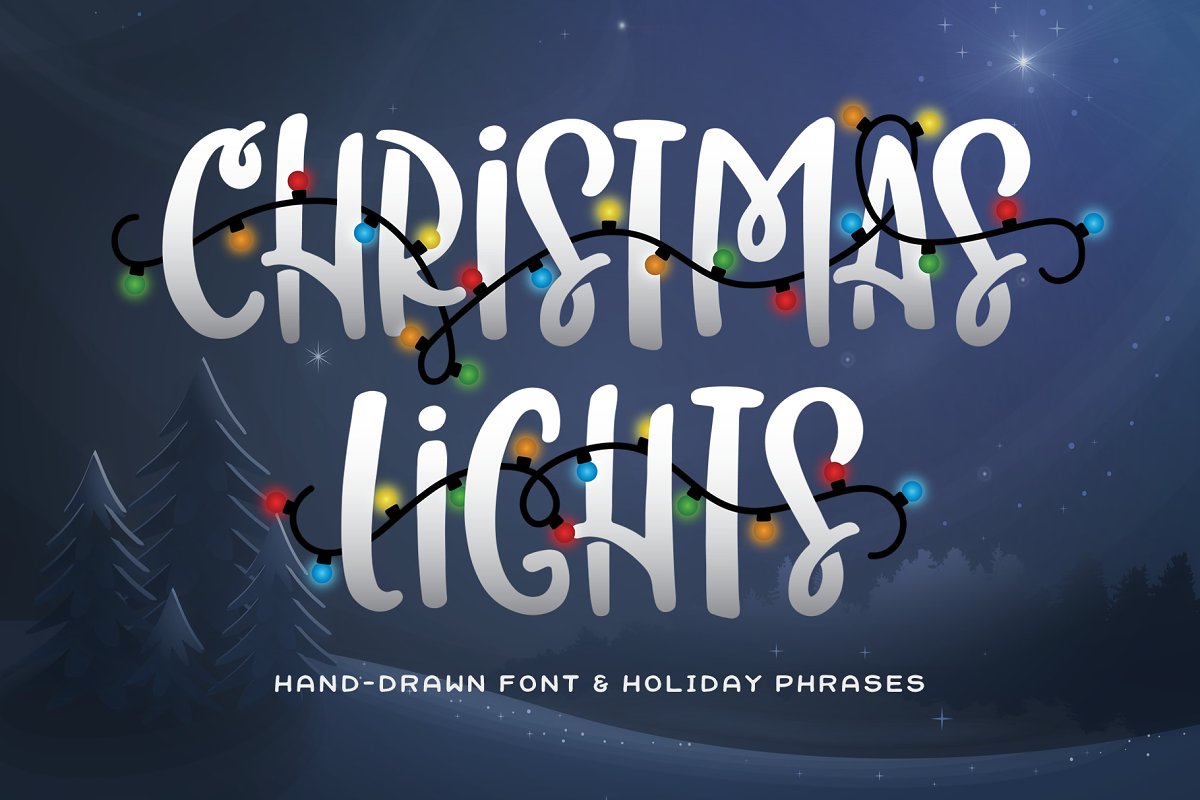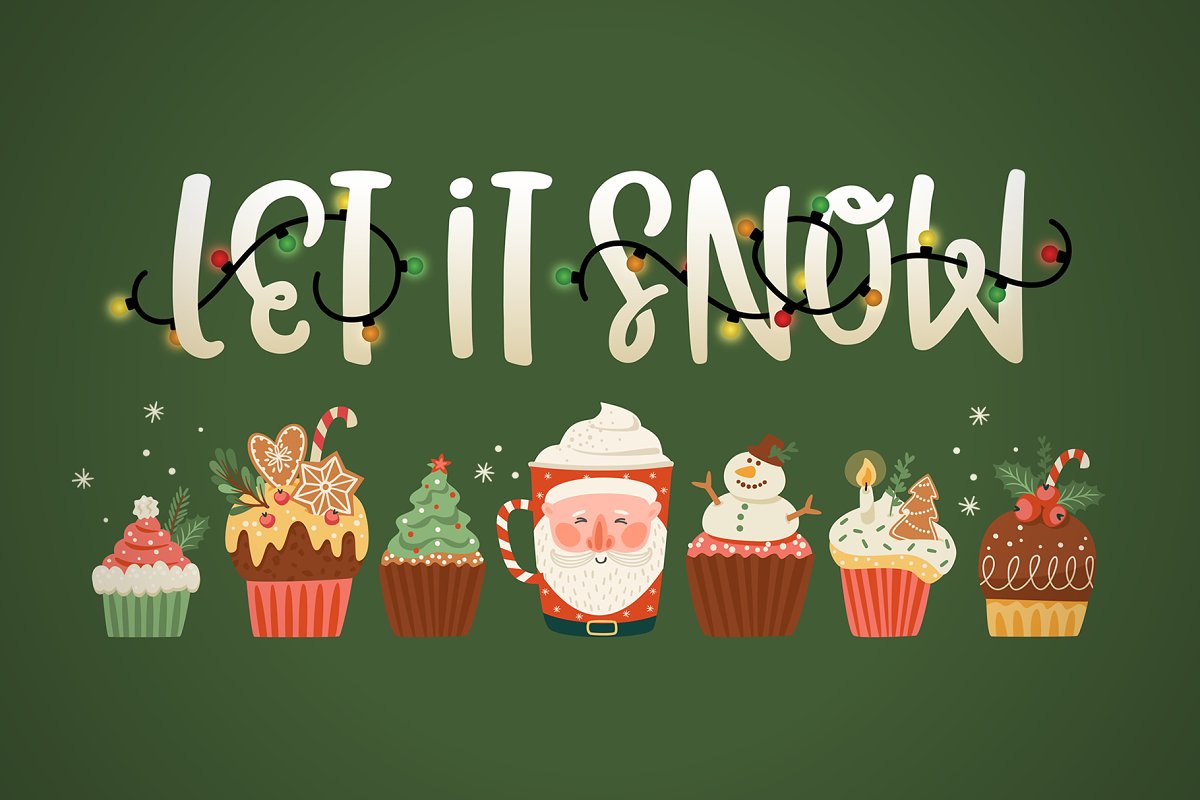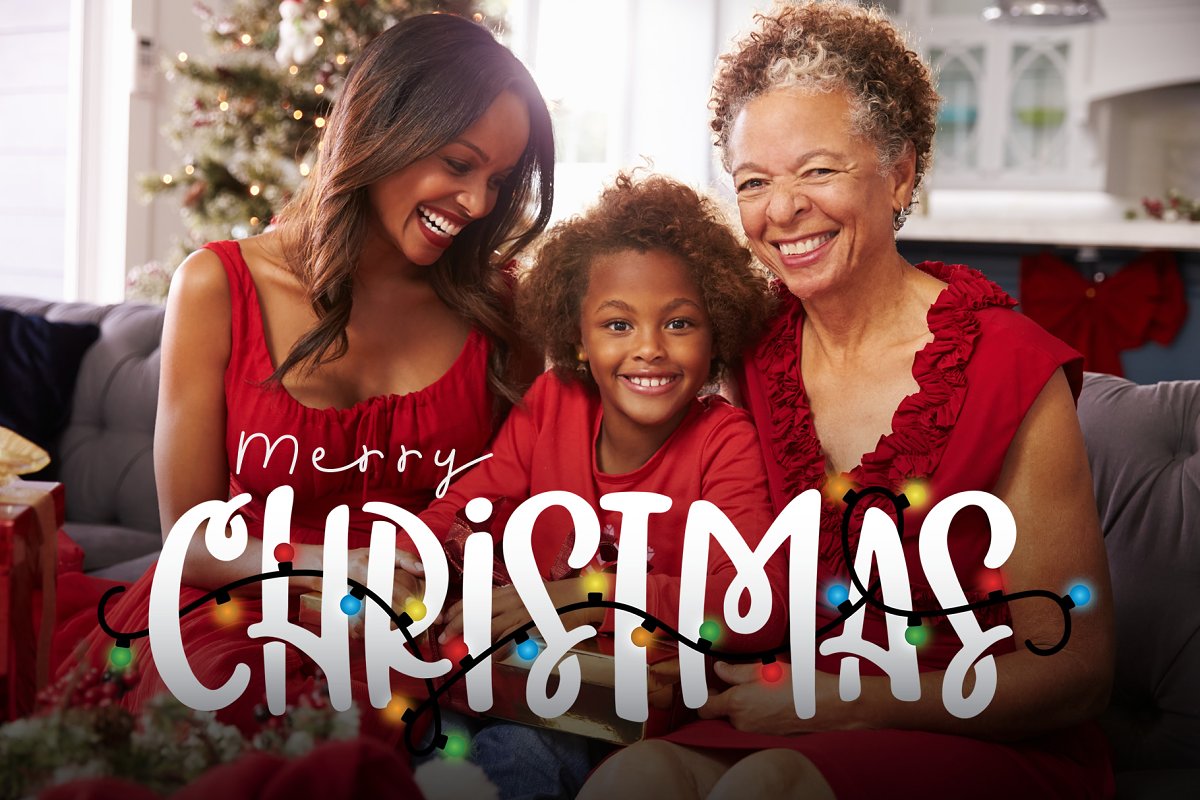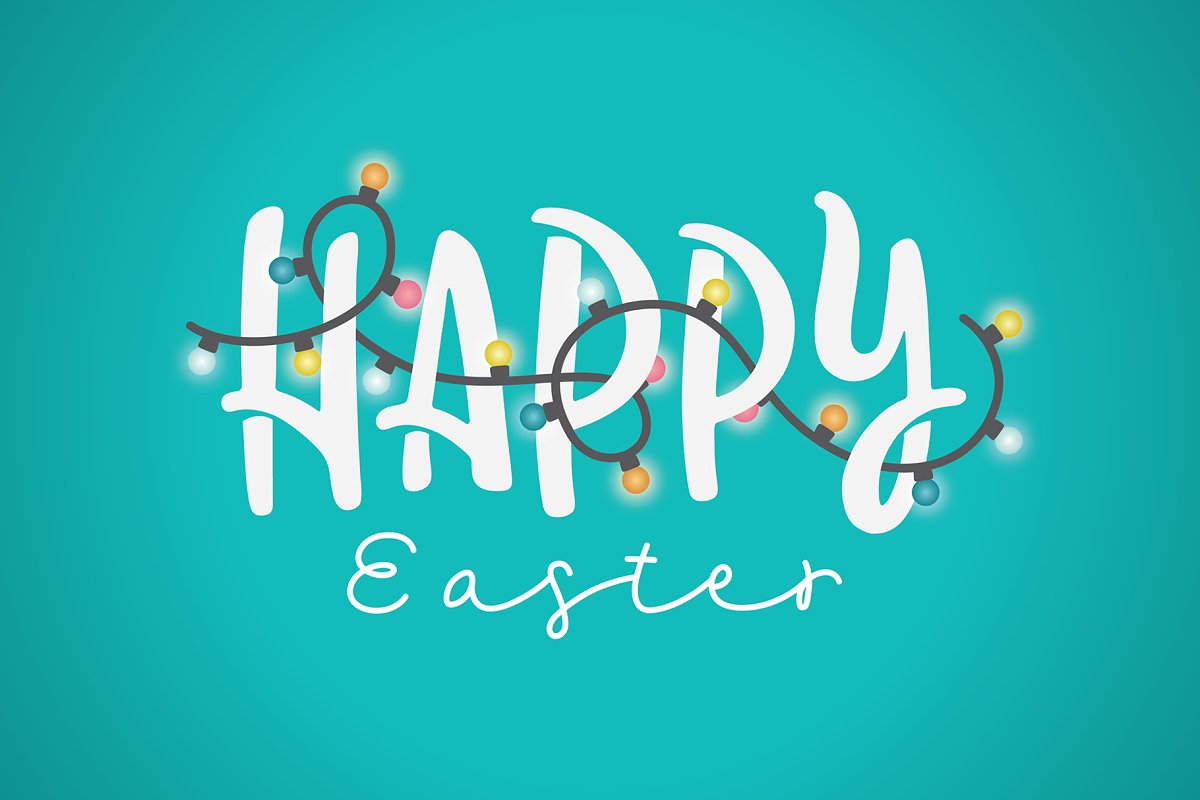
About the Christmas Lights Font & Phrases
Christmas Lights is a bold, all-caps font with tons of character, Included in the pack are over 50 holiday words decorated with stringed lights, PNG versions have multi-colored lights, but an Illustrator file is also included which can be used to change the colors of the lights and letters, Files Included:Christmas Lights Font in otf formatOver 50 holiday words with stringed lights in